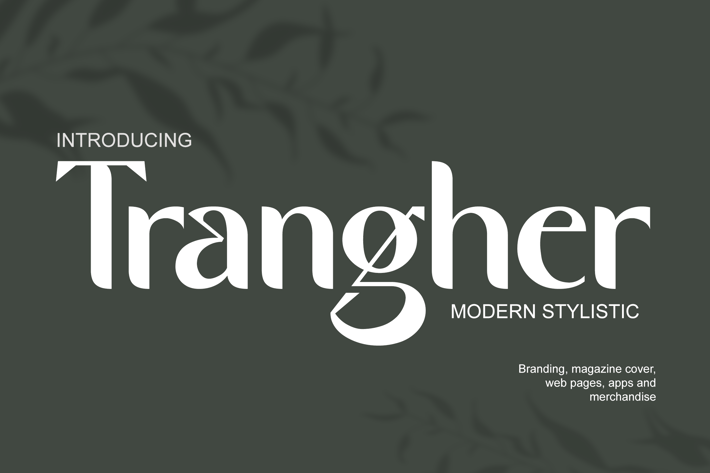
Modern Font
If you’re after a font that instantly catches the eye and makes your brand memorable, stylistic fonts are the way to go.
Introducing Trangher - A Modern Stylistic Font.
Whether you’re working on a magazine cover, a web page, or tackling a full rebranding project, Trangher can take your design to a higher level. Check it out and see the difference that a great font can make!
Multilingual & Ligature Support
Full sets of Punctuation and Numerals